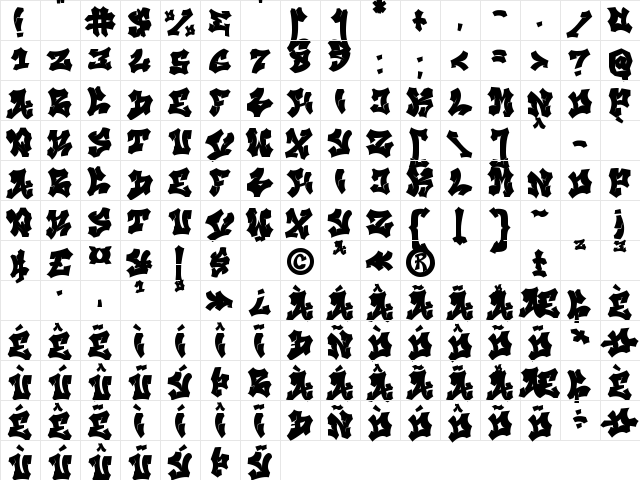
Beast Quotz Solid Solid Free Font
Beast Quotz Solid Solid
Style: Solid
Designer: Muhammad Panji Ramdhani, Ferbiya Rahmat
Design Context for Beast Quotz Solid
Beast Quotz Solid is a composed and adaptable typeface that performs quietly and consistently across a wide range of design contexts.